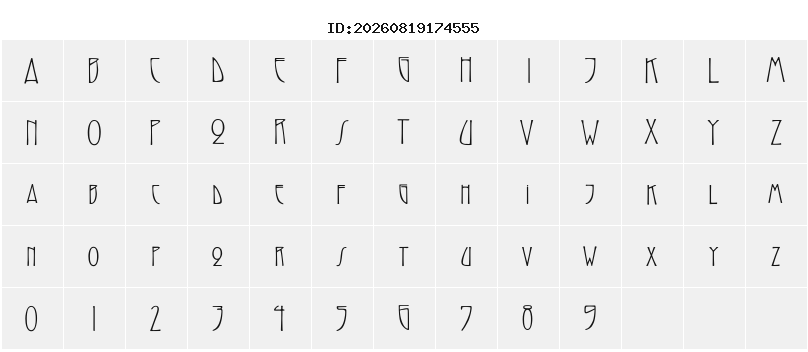
• Font Name: Shrifteen
• Full Font Name: Shrifteen
• PostScript Name: Shrifteen
• Character Count: 173
About Shrifteen.ttf
Shrifteen.ttf is a modern, elegant sans-serif font designed for ultimate readability and visual harmony. Perfect for branding, headlines, web design, and print materials.